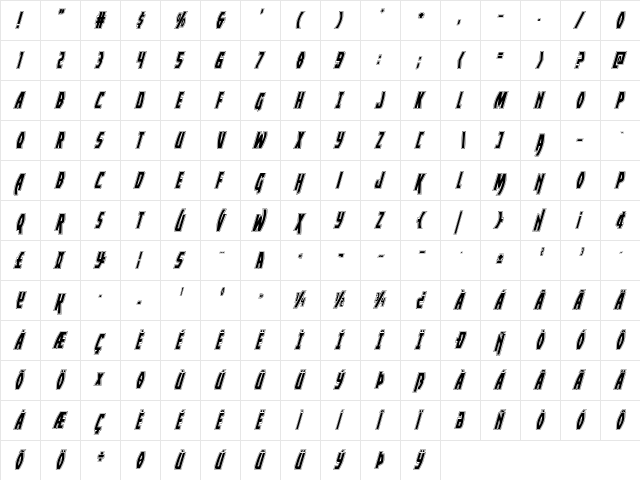
Yankee Clipper Academy Italic Italic
Design Context for Yankee Clipper Academy Italic Typeface
Yankee Clipper Academy Italic is a composed and adaptable typeface that performs quietly and consistently across a wide range of design contexts. The slanted form adds forward momentum and visual energy.
Pro Tip: Use Yankee Clipper Academy Italic for emphasis, pull quotes, and subheadings where its slanted energy can add rhythm to the layout.